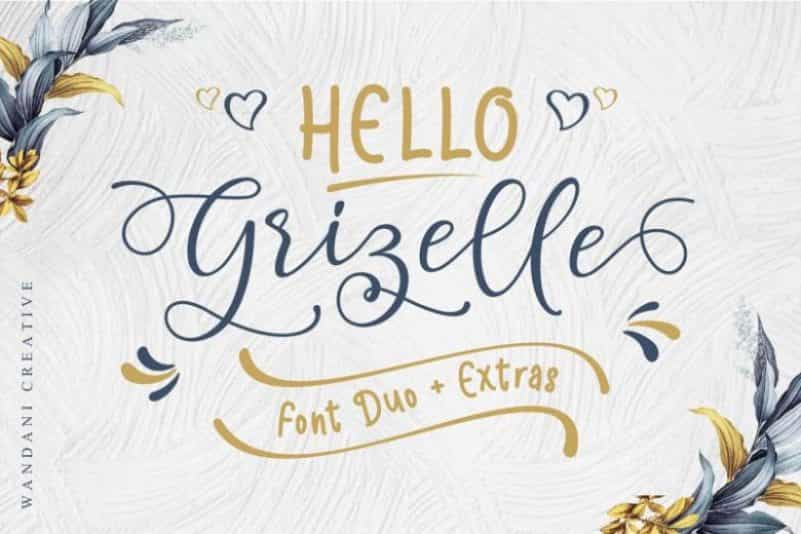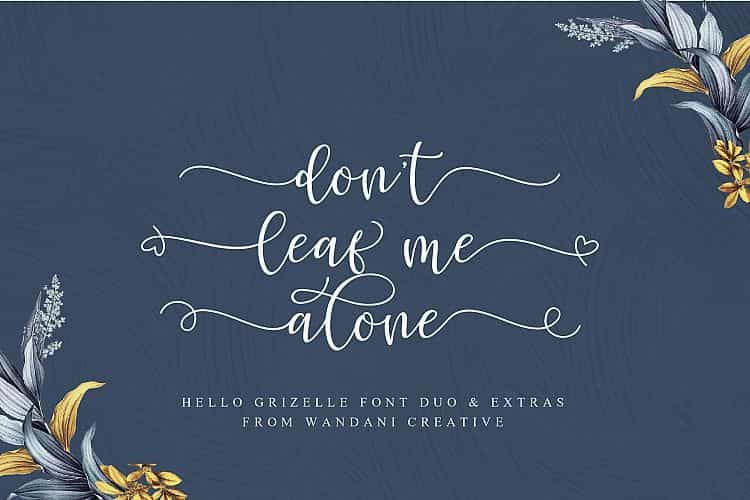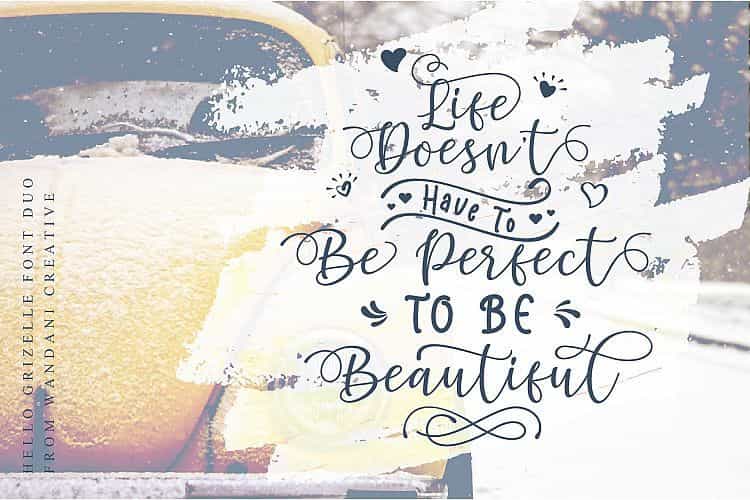
Hello Grizelle Font Duo is a modern calligraphy feminine font, every single letter has been carefully crafting to make the text look beautiful. It is created and posted by wandani to the site. It is an extremely beautiful and suitable combination of fonts for the project and gives the project a beautiful and powerful look. This download comes with two different style font that complement each other to provide impressive typographical designs.